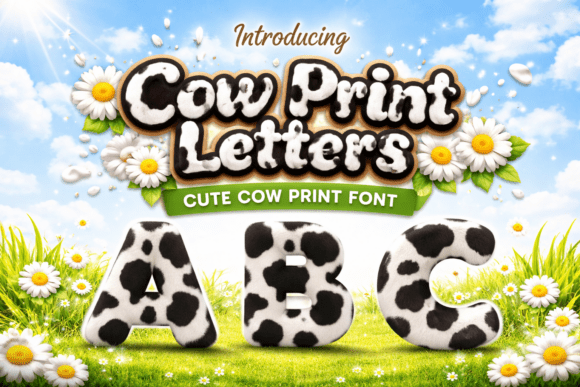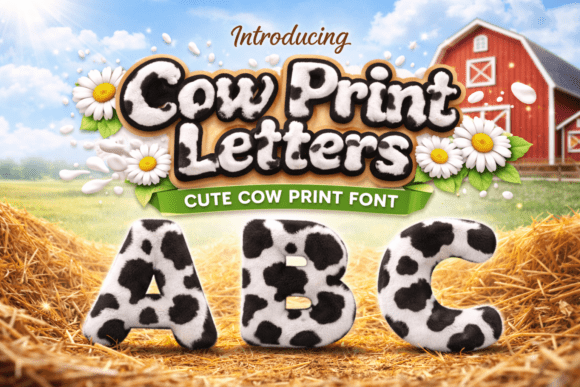
Cow Print Letters Font: A Fun and Fluffy Display Font for Your Creative Projects
Are you looking for a unique and playful font to add a touch of whimsy to your designs? Look no further than the Cow Print Letters Font! This fun and fluffy display font features soft 3D alphabet characters with realistic black-and-white cow patterns, perfect for farm-themed designs, kids projects, party decorations, branding, and playful craft creations.
What is Cow Print Letters Font?
Cow Print Letters Font is a digital font that mimics the iconic black-and-white cow print pattern. The font features soft, 3D alphabet characters with a realistic cow print design, giving it a fun and playful look. The font is perfect for designers and crafters who want to add a touch of personality to their projects.
Features of Cow Print Letters Font
- Soft 3D Alphabet Characters: The font features soft, 3D alphabet characters that give it a realistic and eye-catching look.
- Realistic Black-and-White Cow Patterns: The font features realistic black-and-white cow patterns, perfect for farm-themed designs and playful craft creations.
- Fun and Playful: The font has a fun and playful look, making it perfect for kids projects, party decorations, and branding.
Uses of Cow Print Letters Font
Cow Print Letters Font is a versatile font that can be used for a variety of creative projects, including:
- Farm-Themed Designs: The font is perfect for farm-themed designs, such as logos, posters, and flyers.
- Kids Projects: The font is great for kids projects, such as coloring pages, activity sheets, and educational materials.
- Party Decorations: The font can be used to create fun and playful party decorations, such as banners, garlands, and invitations.
- Branding: The font can be used for branding, such as logos, business cards, and packaging.
- Playful Craft Creations: The font is perfect for playful craft creations, such as scrapbooking, card making, and DIY projects.
Tips for Using Cow Print Letters Font
Here are some tips for using Cow Print Letters Font:
- Use it for Headlines: The font is perfect for headlines and titles, where you want to grab attention and add a touch of personality.
- Mix it with Other Fonts: The font can be paired with other fonts to create a unique and interesting look.
- Experiment with Colors: The font can be used with different colors to create a variety of effects, such as a bold and bright look or a soft and pastel look.
- Use it for Kids Projects: The font is great for kids projects, such as coloring pages, activity sheets, and educational materials.
Cow Print Letters Font is a fun and fluffy display font that is perfect for designers and crafters who want to add a touch of personality to their projects. With its soft 3D alphabet characters and realistic black-and-white cow patterns, the font is perfect for farm-themed designs, kids projects, party decorations, branding, and playful craft creations. So why not give it a try and see how you can use it to add a touch of whimsy to your designs?